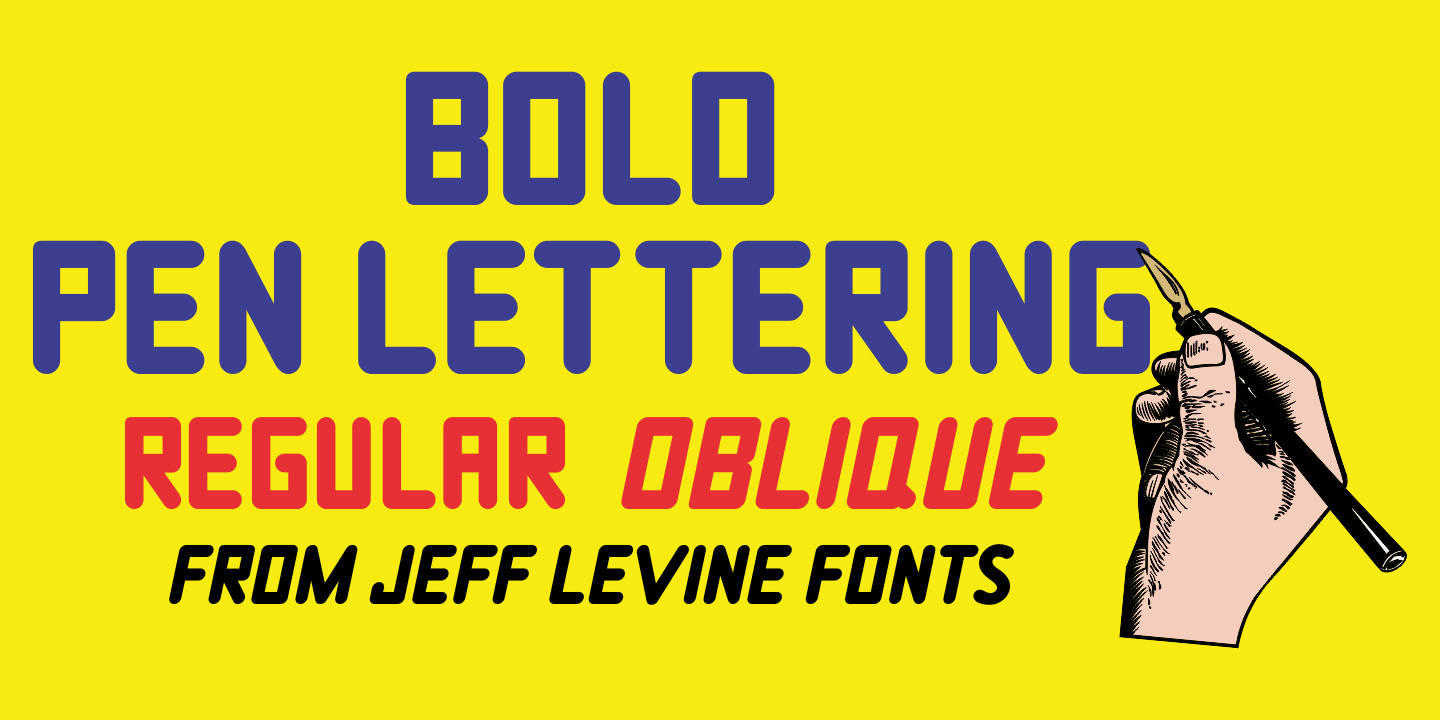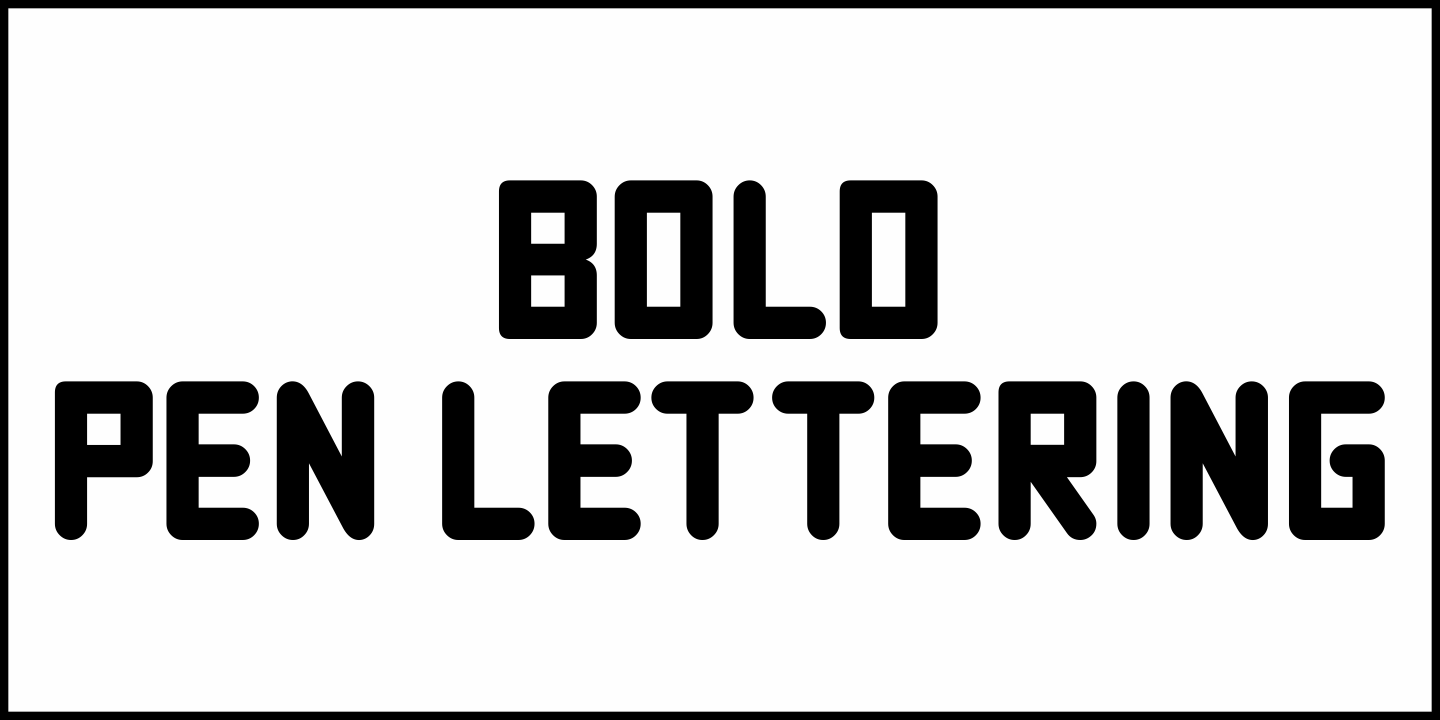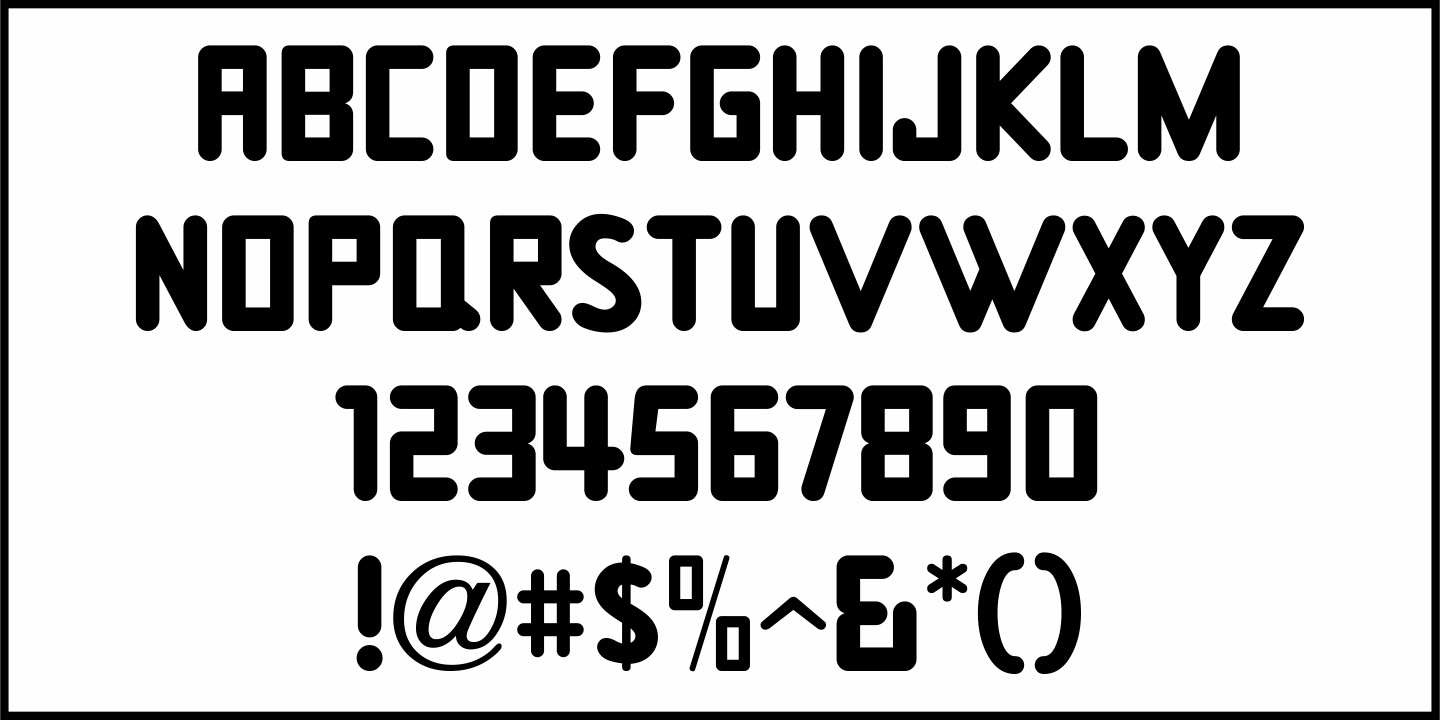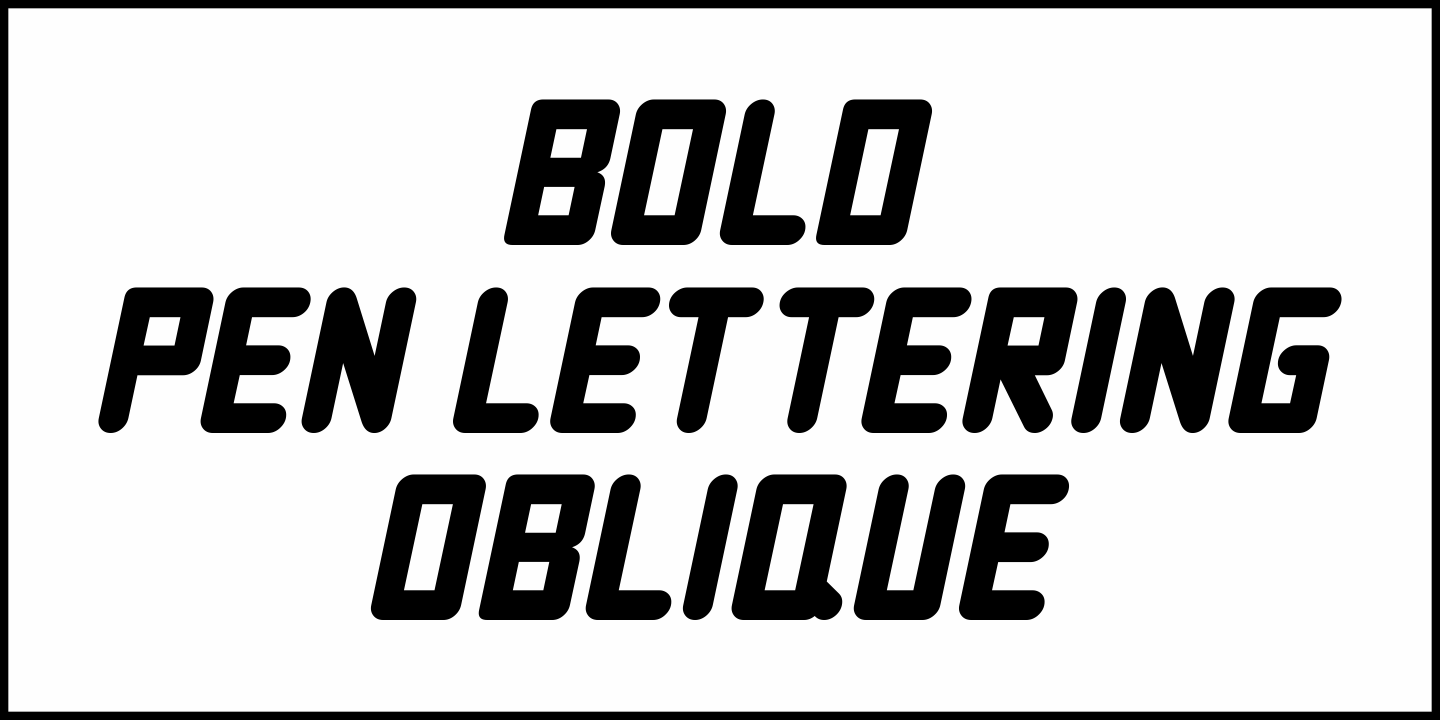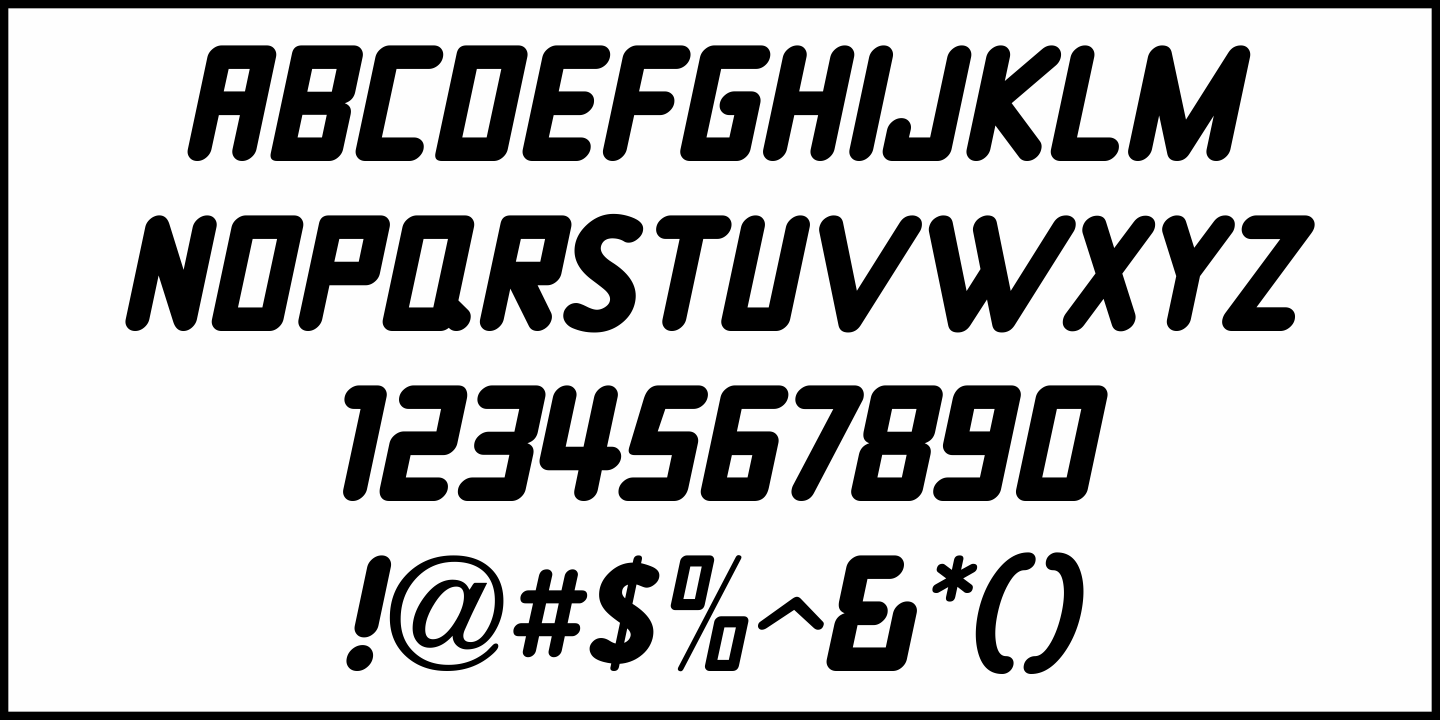
Bold Pen Lettering
The title on the cover of Street & Smith's 'Wild West Weekly” for Jan. 27, 1934 made for an interesting contrast in terms.
Here was a pulp magazine dedicated to stories of the Old West, but its title was hand lettered in an extra bold, squared shape style using a round pen nib – not exactly an alphabet that represented cowboys and desperados…
This aside, this type style made for a good digital font revival, and it is now available as Bold Pen Lettering JNL in both regular and oblique versions.